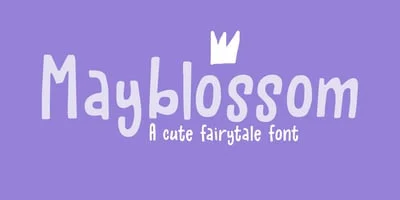
Mayblossom Font
Mayblossom Font is perfect for spring wedding invitations, blooming garden center branding, romantic flower shop signage, delicate Mother's Day cards, fresh beauty product packaging, seasonal fashion campaigns, elegant botanical illustrations, and blossoming lifestyle magazines. This enchanting typeface excels in seasonal applications, romantic design projects, and any creative work requiring blooming elegance that captures the essence of springtime renewal and floral beauty through delicate natural sophistication.
What makes Mayblossom Font exciting is its extraordinary ability to embody the gentle awakening of spring and the delicate beauty of blooming flowers through tenderly crafted letterforms that blossom with natural grace and seasonal charm. The font features organically designed characters with petal-soft curves and blooming proportions that evoke feelings of renewal and natural elegance, making it ideal for brands seeking to establish connections with nature-loving audiences and communicate through gentle seasonal visual language. Its blossoming presence ensures immediate recognition of spring beauty and floral sophistication.
Mayblossom Font family includes multiple weights and styles: Regular, Bold, Light, Medium, Italic variations, and floral alternates with blooming embellishments and petal-inspired decorative elements. Each family member maintains the distinctive seasonal character while offering comprehensive design options for spring campaigns, from gentle botanical text to blooming headlines that establish natural authority and seasonal credibility through delicately blossoming typography.
Whether you're designing seasonal brand identities or creating blooming spring campaigns, Mayblossom Font provides the perfect typography solution for floral branding needs. This font transforms ordinary text into beautiful seasonal expressions that communicate spring renewal and blooming elegance. Garden centers and seasonal lifestyle brands choose this typeface for its ability to convey springtime beauty through delicately crafted letterforms that bloom across designs with natural grace and celebrate the eternal promise of spring's gentle awakening.